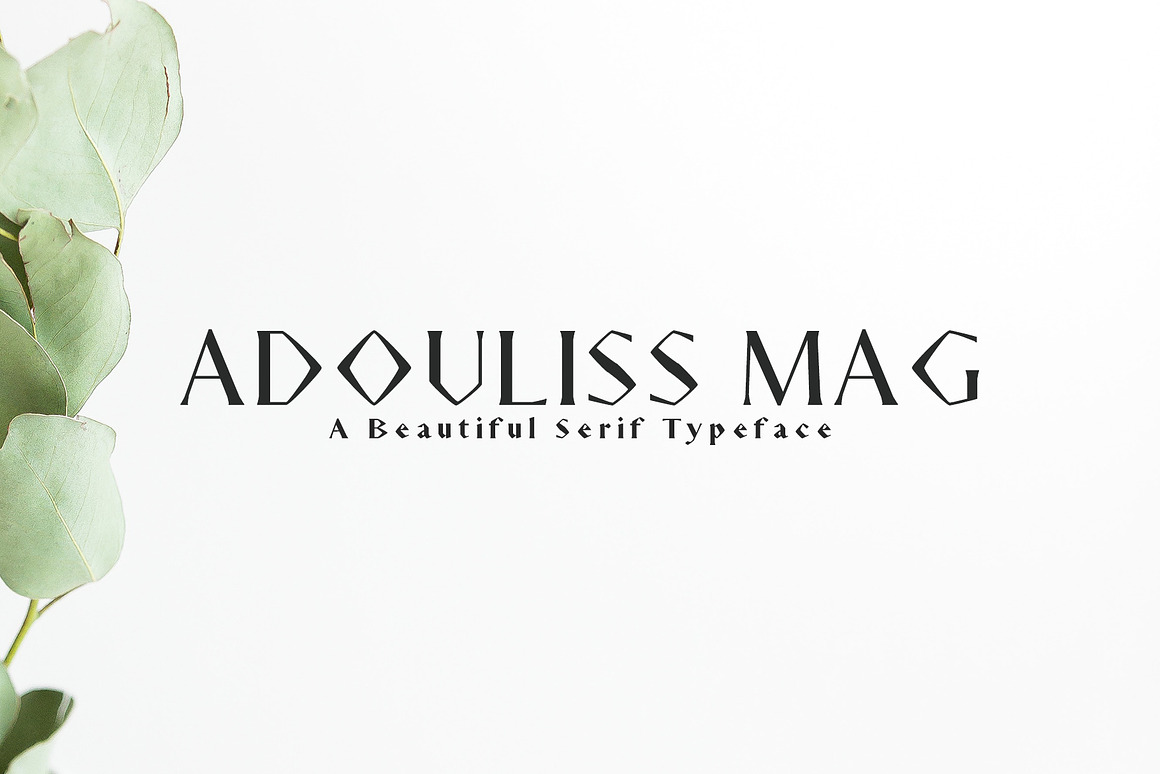
Adouliss Mag Serif 9 Font Family
Adouliss Mag Serif 9 Font Family is perfect for premium magazine layouts, luxury editorial design, sophisticated book publishing, high-end fashion publications, cultural journals, upscale brand communications, elegant marketing materials, and distinguished print publications.
Adouliss Mag Serif 9 Font Family is exciting because it masterfully combines editorial excellence with luxurious sophistication, featuring refined serif details and optimized proportions that create exceptional reading flow while projecting premium quality. Its distinguished character elevates any publication to magazine-quality standards.
Adouliss Mag Serif 9 Font Family family includes nine comprehensive weights from thin to black with matching italic variations, providing designers with eighteen expertly crafted font styles for complete editorial flexibility and sophisticated typographic hierarchies.
Adouliss Mag Serif 9 Font Family Free Download represents the pinnacle of editorial typography designed specifically for premium publishing applications. This exceptional typeface collection showcases masterful attention to detail through its carefully balanced serif construction and optimized character spacing that enhances sustained reading comfort while maintaining visual elegance. The font's magazine-quality appearance makes it ideal for publishing houses, luxury brands, cultural institutions, and media companies seeking authoritative visual communication that commands reader attention and respect.
Editorial professionals consistently choose Adouliss Mag Serif 9 Font Family for its outstanding performance in high-quality publications requiring sophisticated visual hierarchy. The font's comprehensive weight range and refined styling ensure excellent readability across various applications from body text to dramatic headlines. Its classical foundation provides familiar reading comfort while contemporary refinements ensure optimal performance in both digital and premium print media applications.
The Adouliss Mag Serif 9 Font Family download includes extensive character sets with editorial symbols, mathematical notation, and international language support for global publishing compatibility. This thorough coverage ensures professional results in complex multilingual publications, academic journals, and cultural magazines. The font's consistent spacing and careful kerning optimization create polished layouts that enhance reader engagement and editorial presentation quality.
Publishing teams appreciate Adouliss Mag Serif 9 Font Family's versatility in creating prestigious editorial materials that establish immediate credibility and cultural sophistication. Its timeless appeal transcends publishing trends while maintaining the gravitas required for serious editorial discourse, making it an invaluable asset for organizations seeking to establish lasting authority through superior typographic communication and magazine-quality visual excellence.